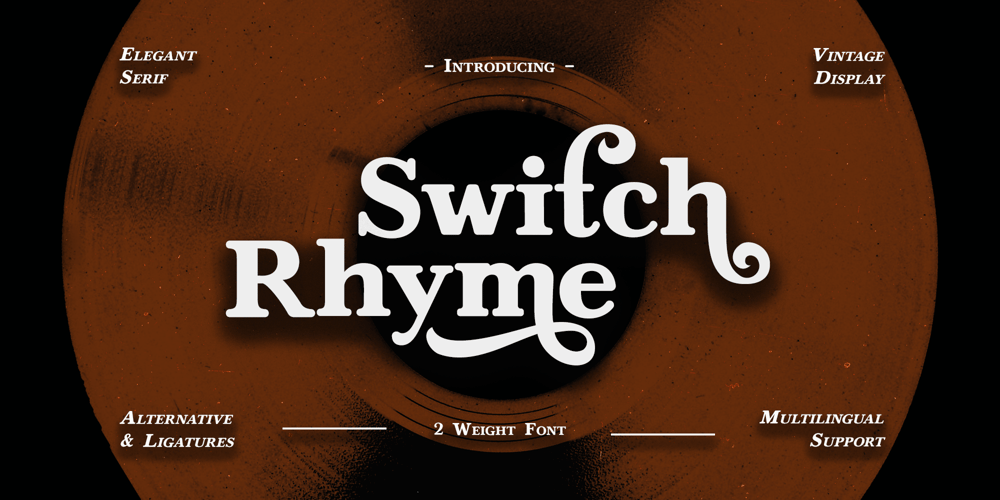
Switch Rhyme Font Family was designed by Frederik Aristaputra and published by Creatifont Studio. Switch Rhyme contains 2 styles and family package options. Switch Rhyme is a versatile serif font that seamlessly blends classic elegance with contemporary design sensibilities. Its refined letterforms, characterized by graceful curves and distinctive serifs, evoke a sense of tradition and sophistication. The font’s versatility is enhanced by the inclusion of both regular and italic styles, offering designers a broad palette for creative expression. Whether used for print or digital applications, Switch Rhyme adds a touch of timeless charm to any project.A SUMMARY OF WHAT’S INCLUDED: Standard Character A-Z, a-z, 0-9, Punctuation & symbols Regular and Italic Style Alternate and Ligature Features Multilingual Support Works on PC & Mac Simple installation Accessible in Adobe Creative Suite (Ai, Ps, Id, etc.) even work on Microsoft Word. PUA Encoded Characters – Fully accessible without additional design software. 🌟If you come across any issues or notice anything we might have overlooked while using this product, please feel free to reach out to us. We greatly value your feedback as it helps us enhance and refine our products. Thank you!*The font format you receive depends on the license you purchase.